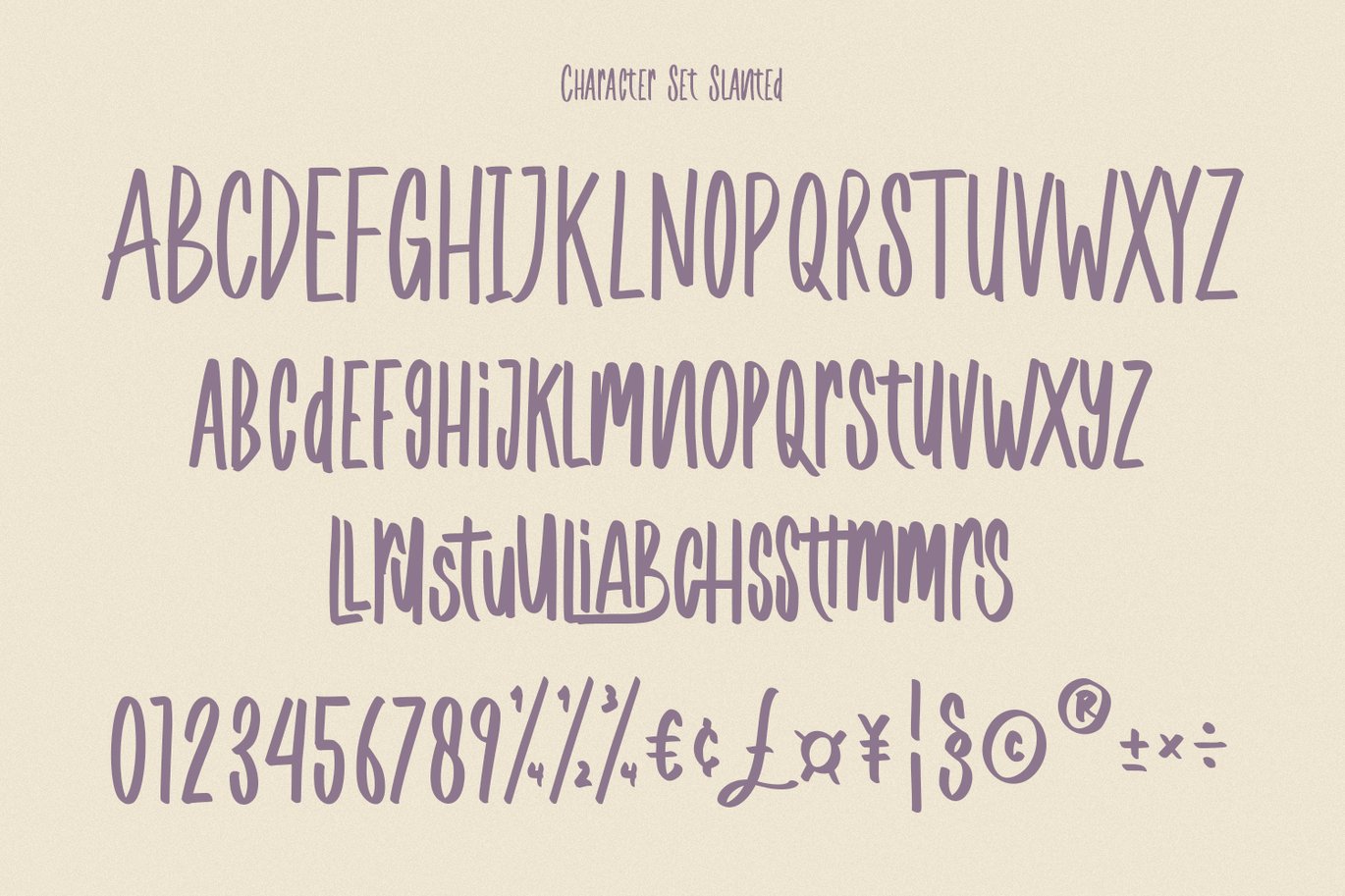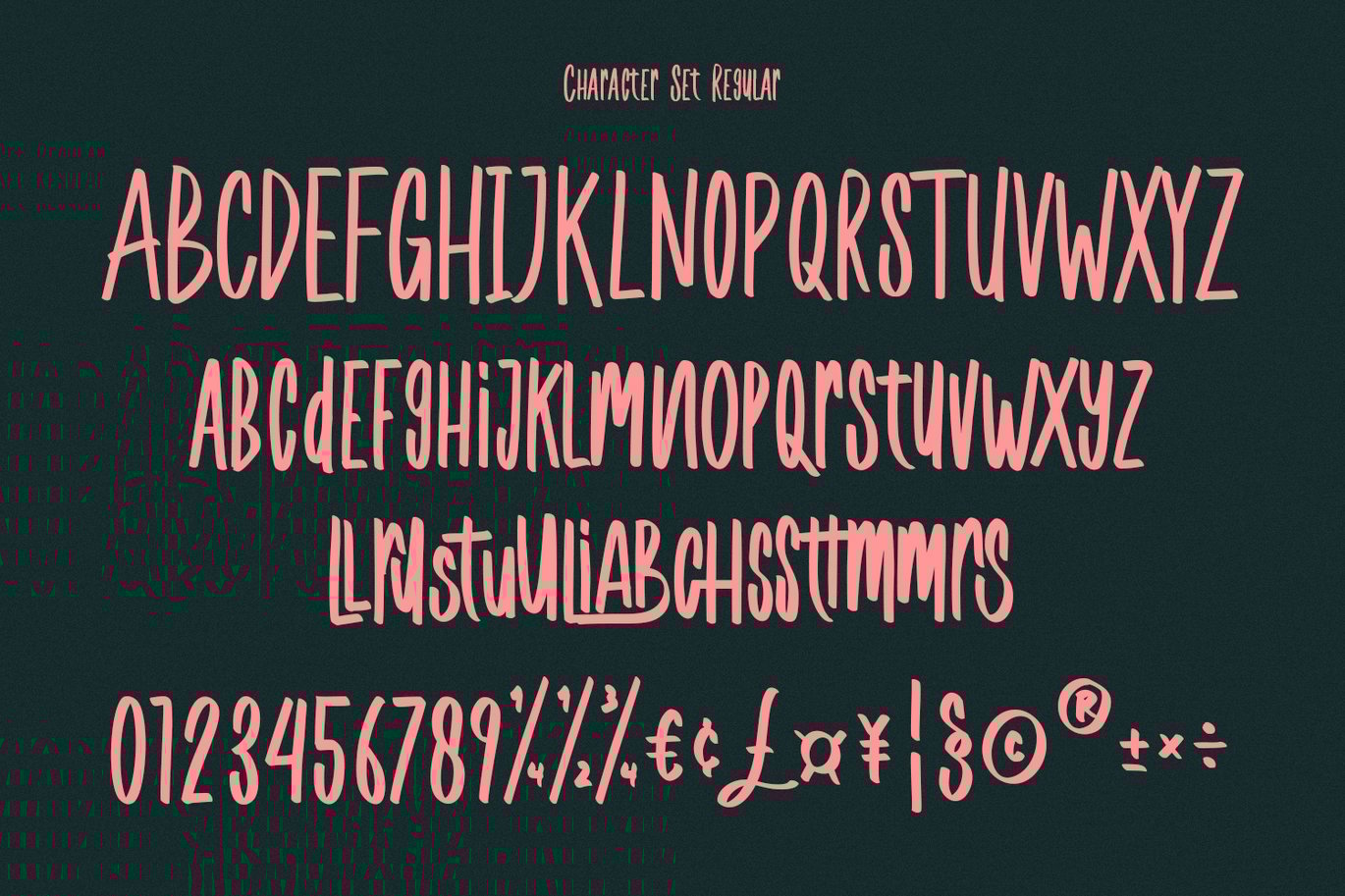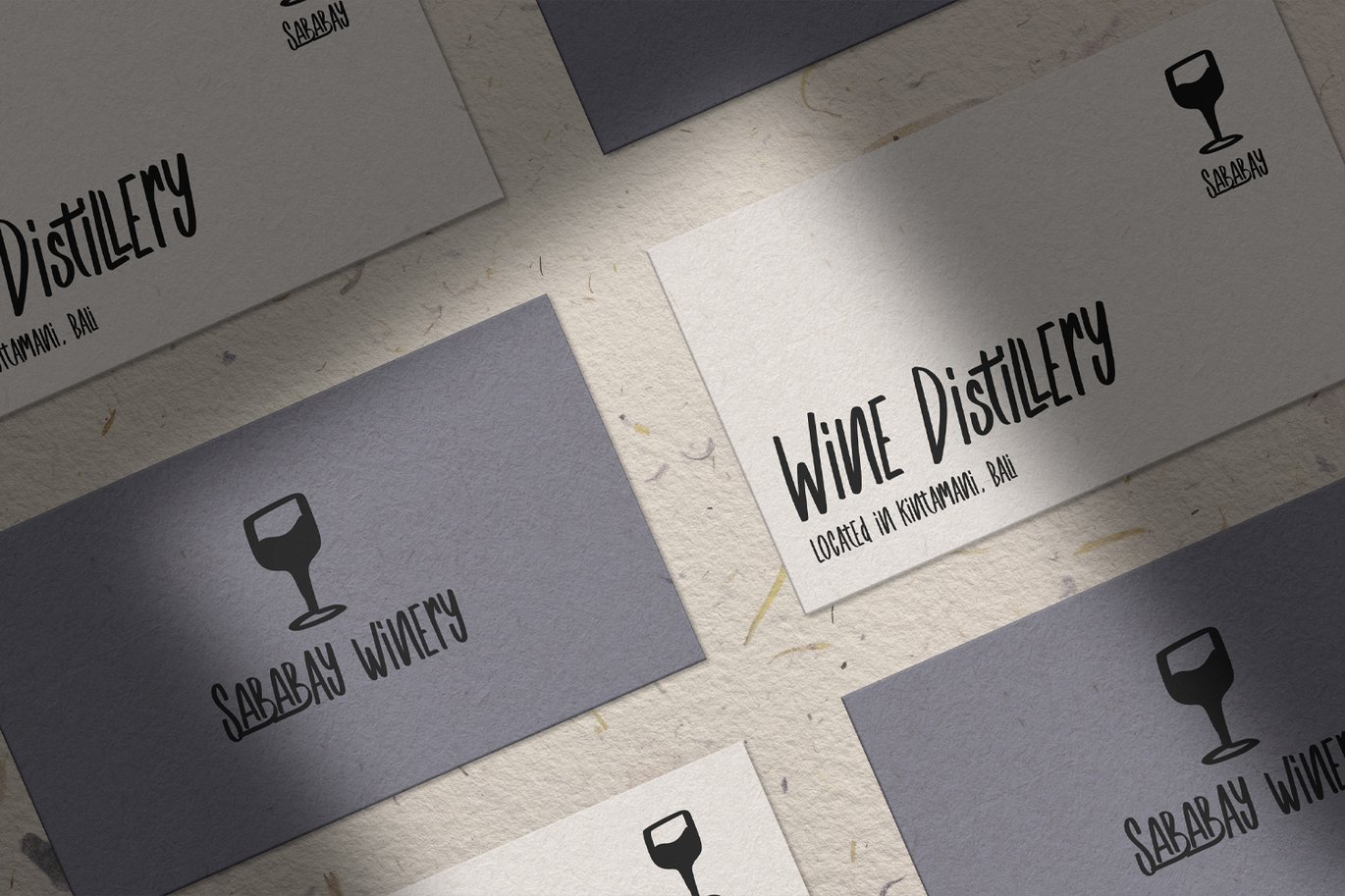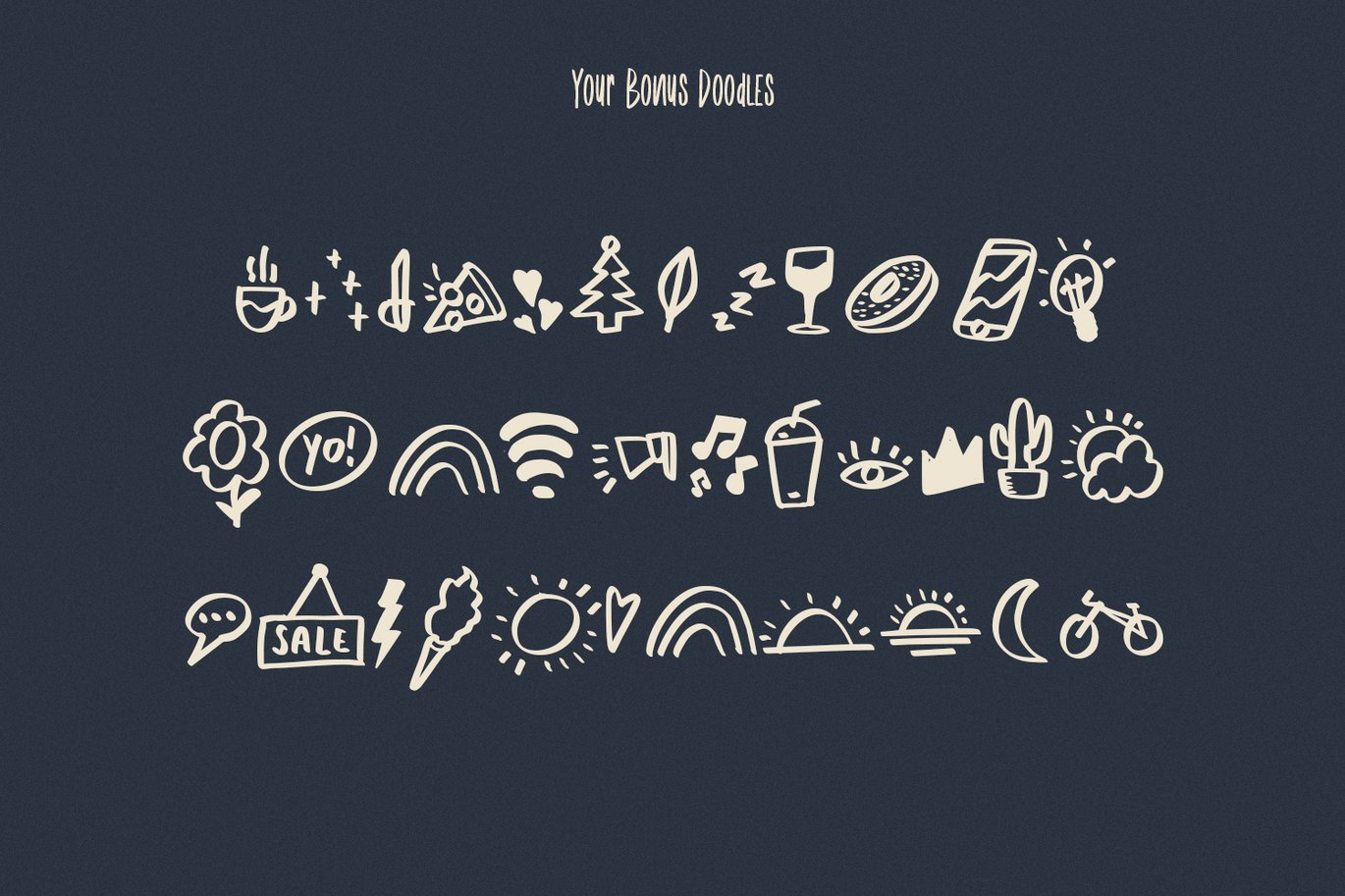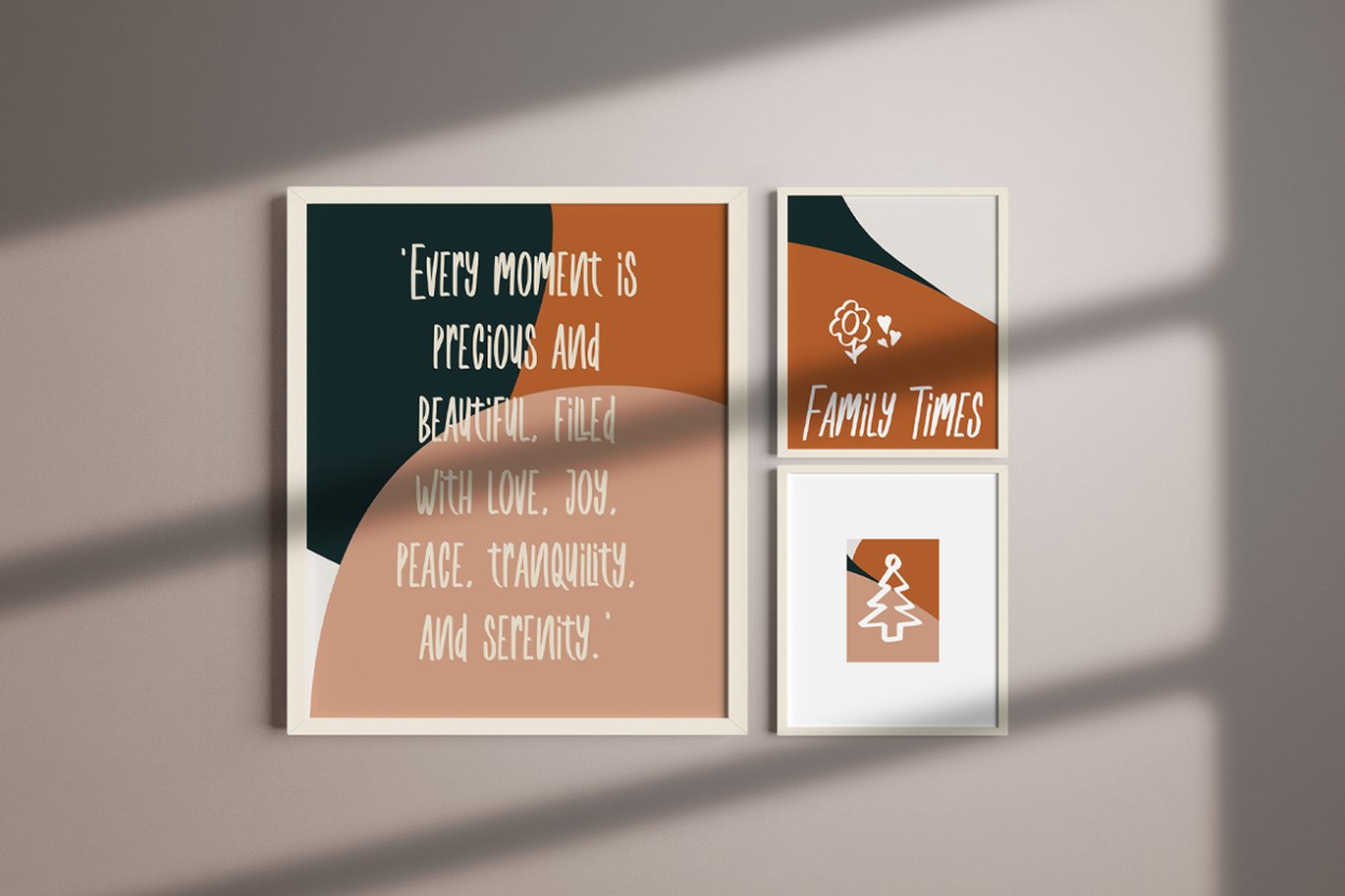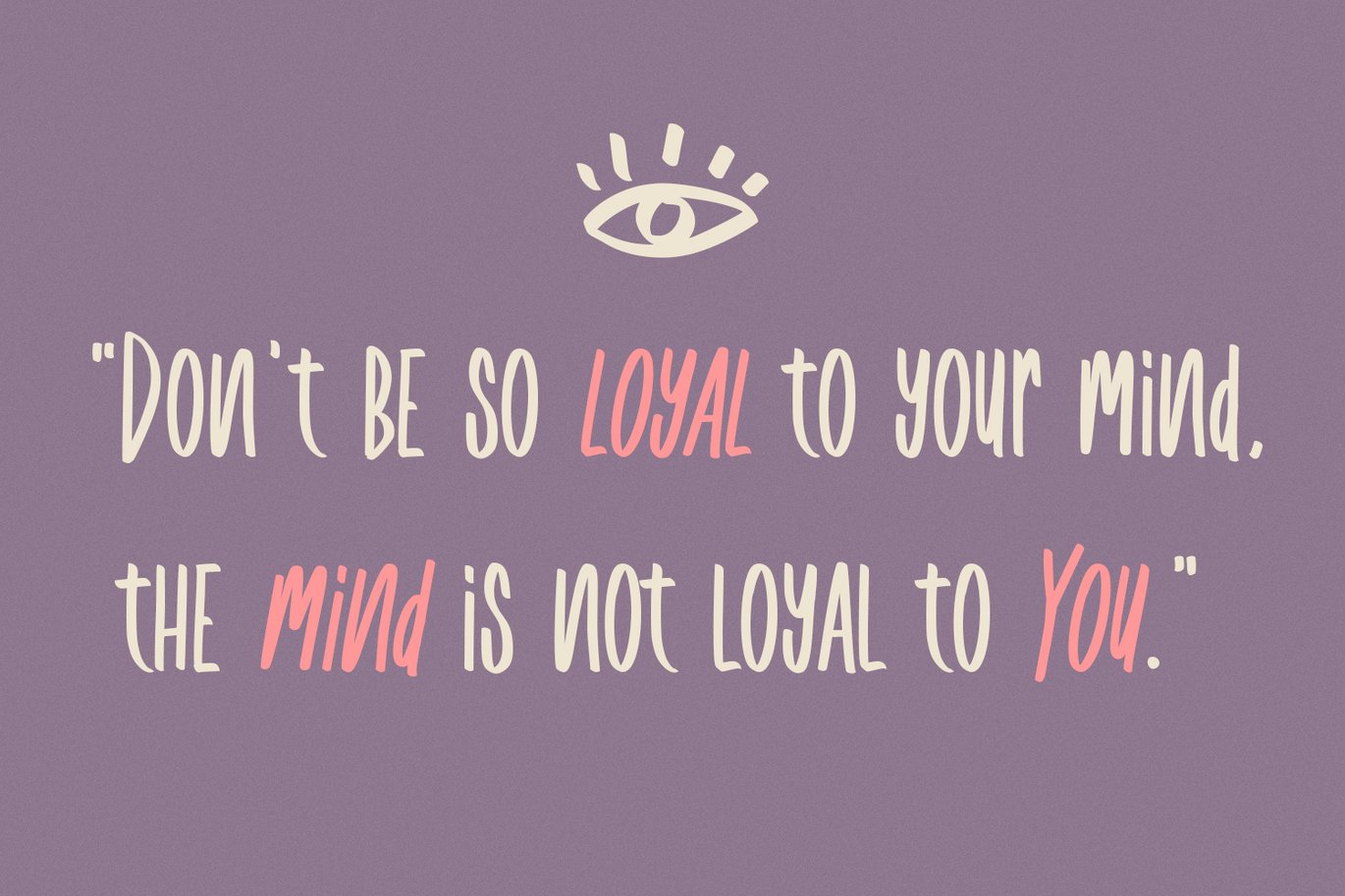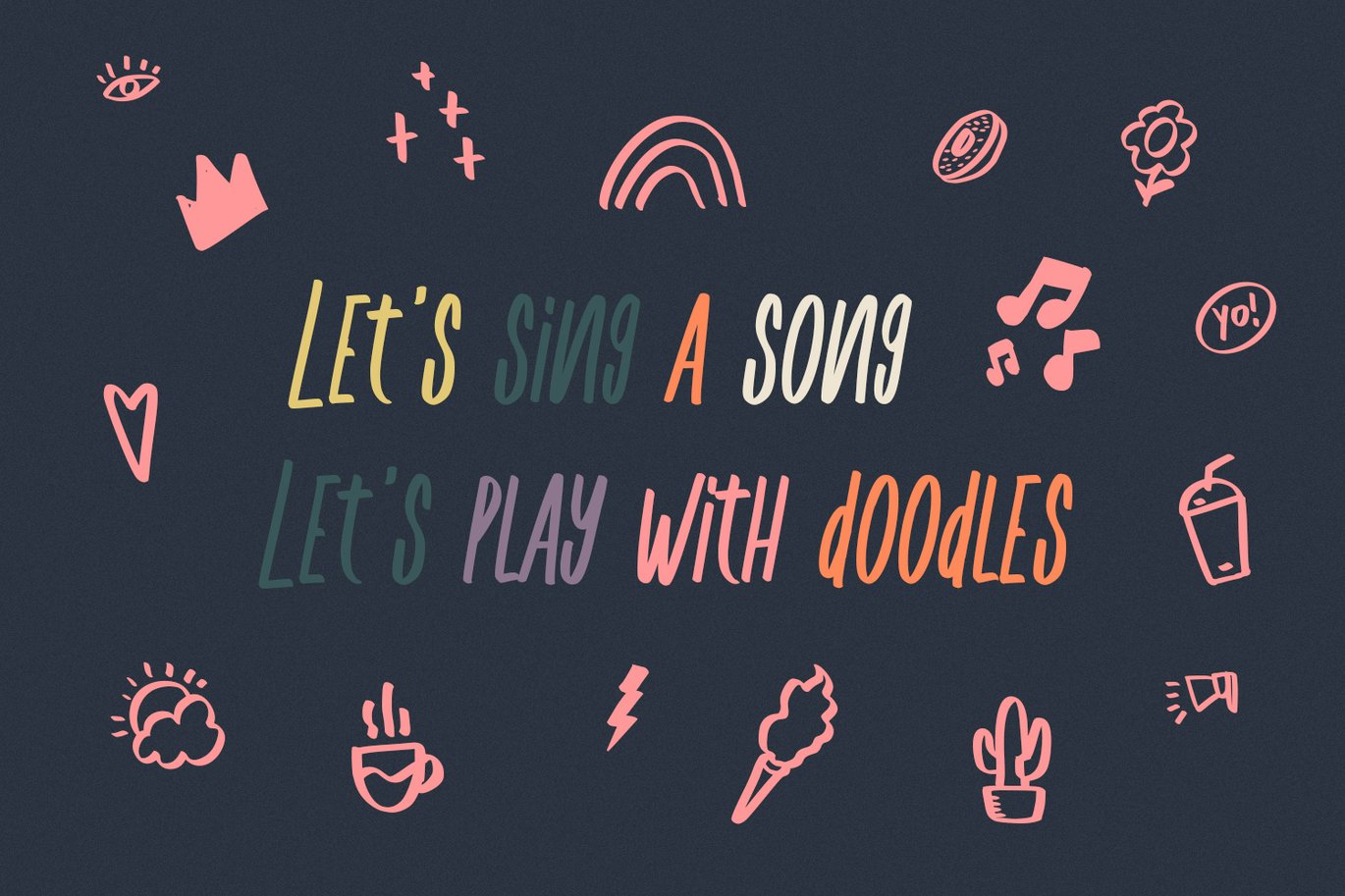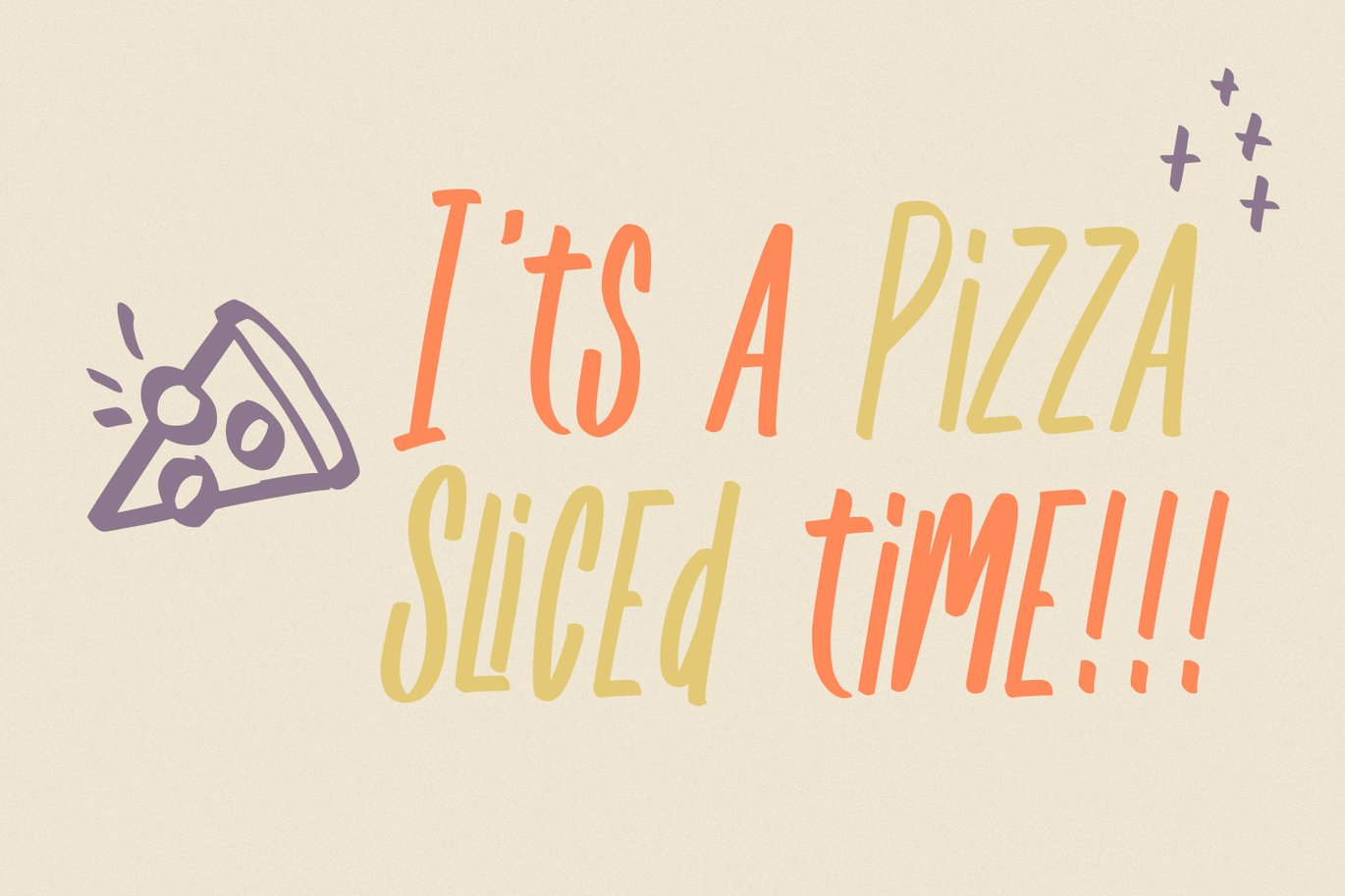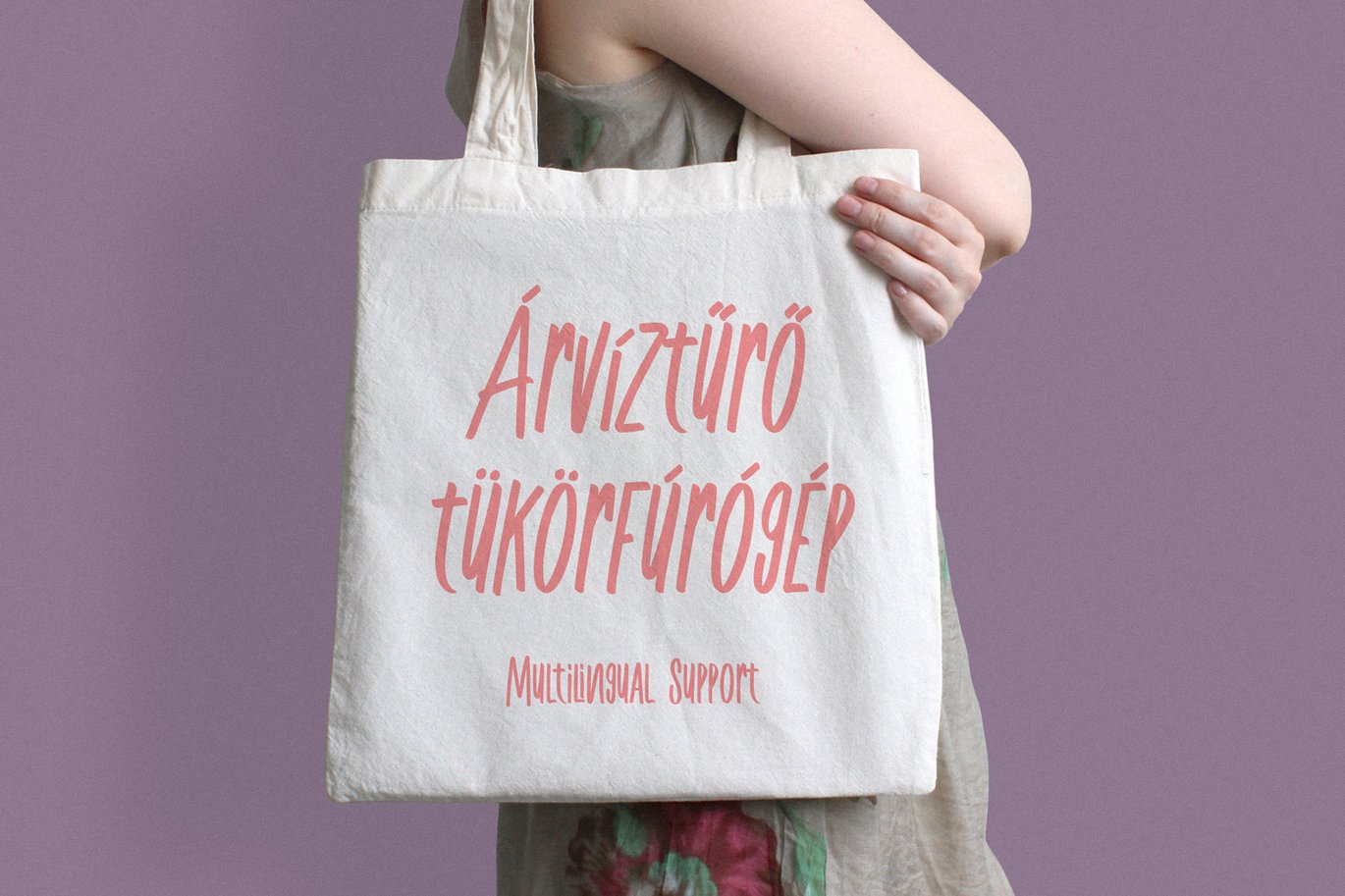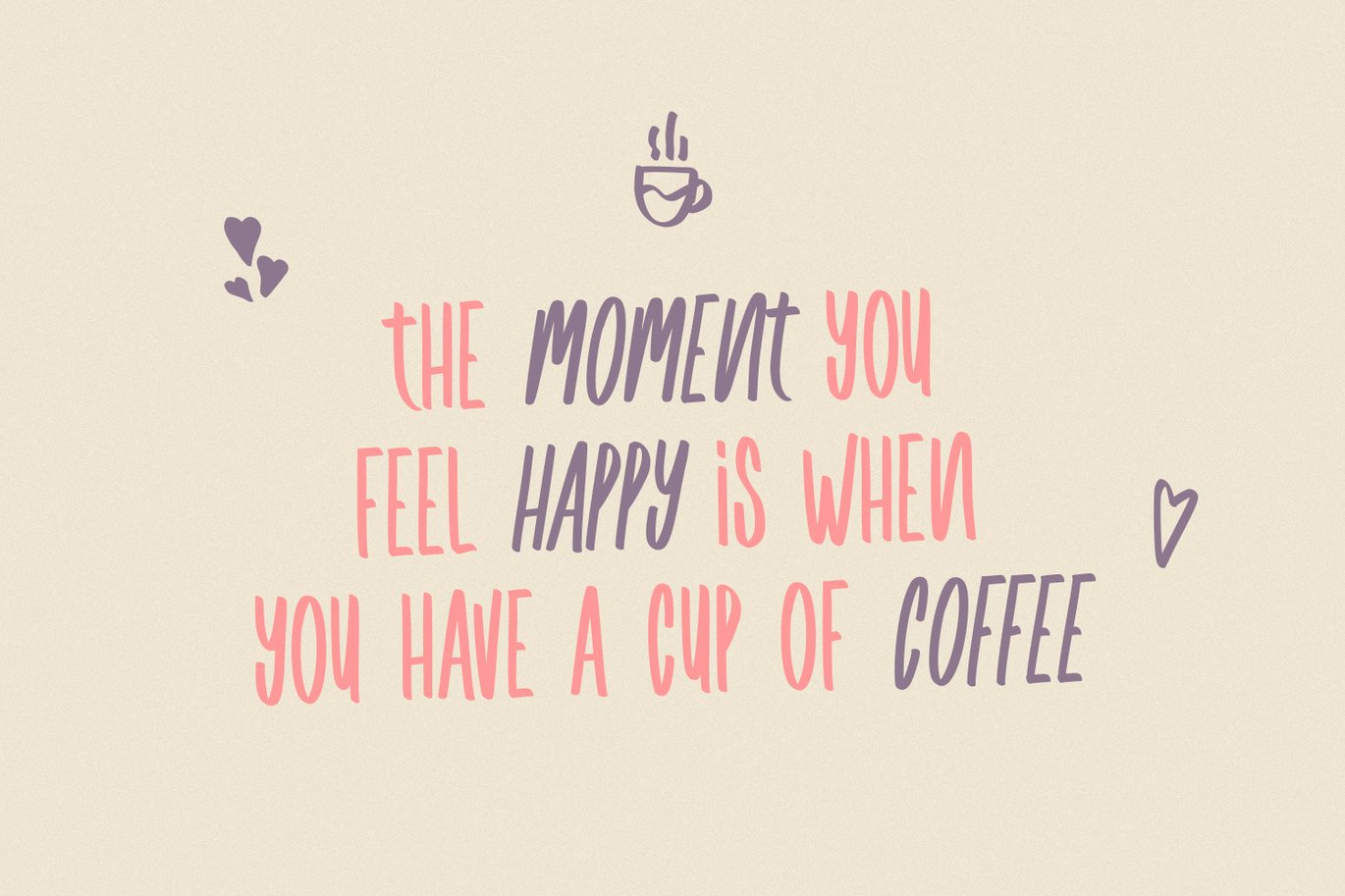
Gulfys Handwritten Font Extra Doodles
Give your designs an authentic brush handcrafted feel. “Gulfys Handwritten Font Extra Doodles” is perfectly suited to signature, stationery, logo, typography quotes, magazine or book cover, website header, flyer, clothing, branding, packaging design and more.